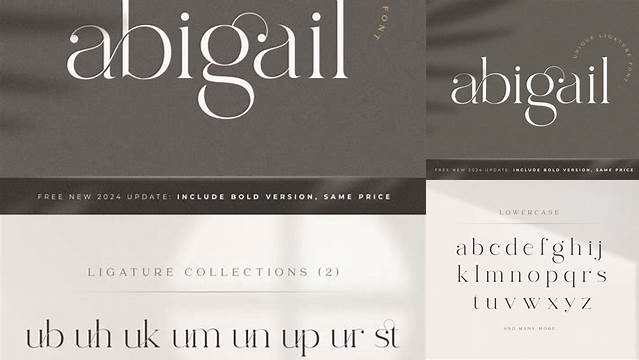
Abigail Font: Unique Ligature Font - Free Download
Hey guys! Are you on the hunt for a font that’s both unique and elegant? Look no further! Today, we’re diving deep into the world of the Abigail Font, a stunning ligature font that's available for free download. Whether you're a graphic designer, a marketing guru, or just someone who loves beautiful typography, the Abigail Font is definitely one you'll want to add to your collection. This article will cover everything you need to know, from its unique features to how you can use it in your projects. So, let’s get started!
Abigail Font: What Makes It So Special?
The Abigail Font isn't just another typeface; it's a work of art. What sets it apart is its unique ligature design. Ligatures are essentially special characters formed by combining two or more letters into a single glyph. This creates a seamless and elegant flow, making your text look more polished and professional. The Abigail Font takes ligatures to the next level, offering a wide range of stylish combinations that add a touch of sophistication to any design. Imagine using this font for wedding invitations, branding materials, or even website headers. The possibilities are endless!
Why Choose a Ligature Font Like Abigail?
Choosing a ligature font like the Abigail Font can significantly enhance the visual appeal of your projects. Ligatures improve readability by smoothing out the sometimes awkward spacing between certain letter combinations. They also add a unique flair that can make your design stand out from the crowd. In a world where visual communication is key, using a font that's both functional and beautiful is a major advantage. Plus, who doesn't love a font that does a little extra work for you? With Abigail, you get that extra touch of elegance without having to manually adjust letter spacing or kerning.
Using Abigail Font for Branding: A Touch of Elegance
When it comes to branding, the Abigail Font can be a game-changer. Its elegant ligatures and sophisticated design make it perfect for creating a brand identity that exudes class and professionalism. Consider using it for your logo, website, business cards, and marketing materials. The font's unique character can help your brand stand out in a crowded market. Whether you're launching a new business or rebranding an existing one, Abigail Font can add that extra touch of elegance that makes all the difference.
Abigail Font in Web Design: Enhancing User Experience
In web design, typography plays a crucial role in user experience. The Abigail Font can enhance the visual appeal of your website, making it more engaging and enjoyable for visitors. Use it for headings, subheadings, and even body text to create a cohesive and stylish look. Just be mindful of readability – while Abigail Font is beautiful, it's important to ensure that your text is still easy to read. Experiment with different font sizes and weights to find the perfect balance between aesthetics and functionality.
Abigail Font for Print: Making a Lasting Impression
For print materials like brochures, posters, and invitations, the Abigail Font can make a lasting impression. Its elegant ligatures and refined design add a touch of sophistication that's perfect for formal occasions or high-end branding. Imagine using it for wedding invitations, gala programs, or even high-end product packaging. The Abigail Font can elevate your print materials, making them look more polished and professional.